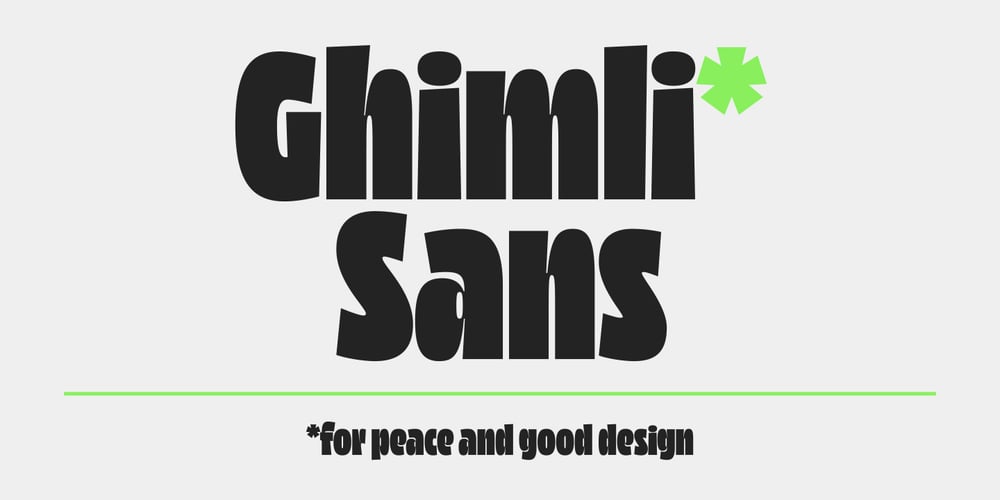
Ghimli Sans Font Family was designed by Anosov Vladimir and published by Anonymous Typedesigners. Ghimli Sans contains 1 styles and family package options. Ghimli Sans was created using the ping-pong method, based on the graphic idea of Artem Rulev and the participation of Vladimir Anosov after. Then we sent the font file to each other, adding something of our own and making corrections, and so on many times. Ghimli Sans has already managed to get 2nd place in the Granshan competition in the Cyrillic section.The name was obtained by combining the name of the dwarf Gimli and Studio Ghibli. The font is quite friendly, dense, kind, as if a dwarf is walking around the lawn with a mug of intoxicated ale on a pleasant sunny day.Suitable for short word design, logo creation, menu layout and use in movies about gnomes and anything fantastic.